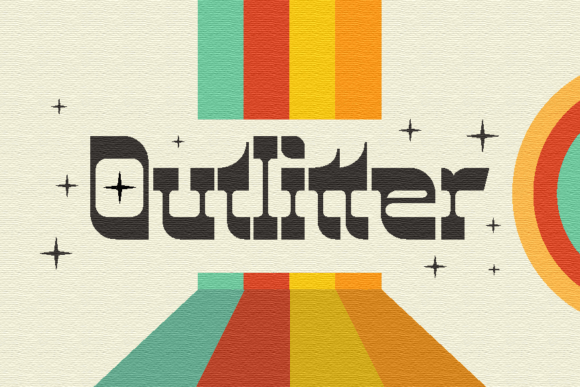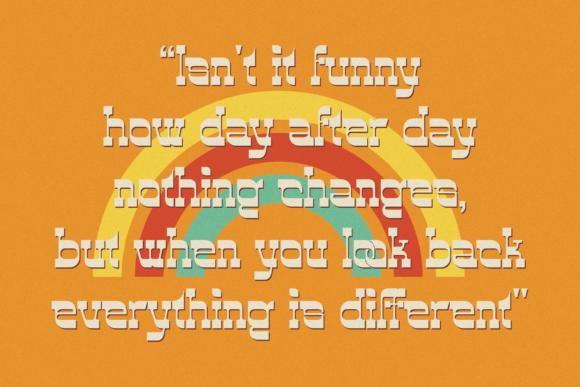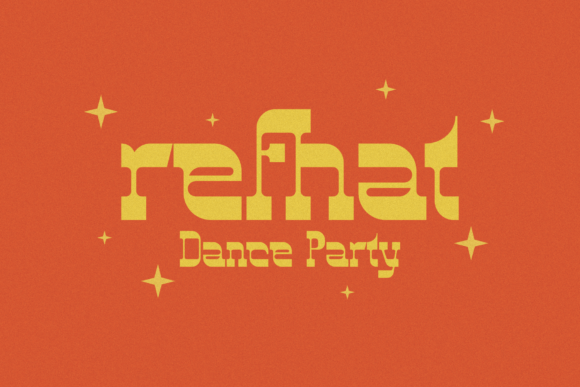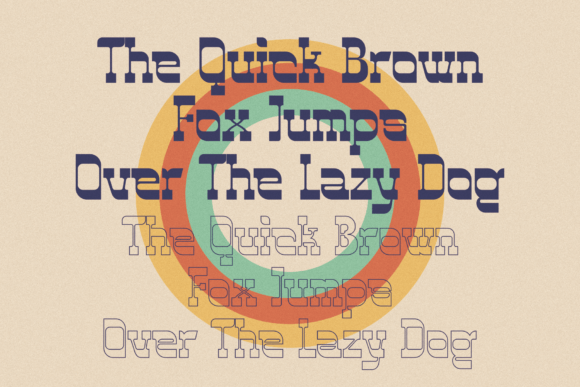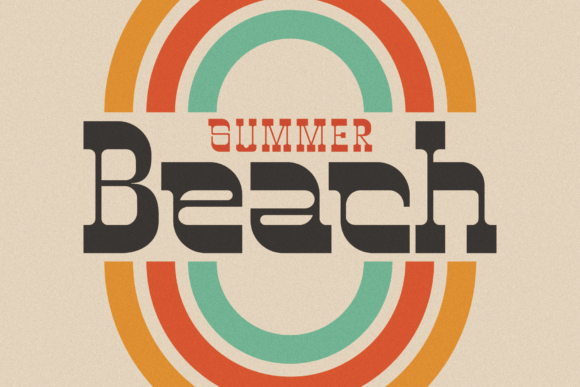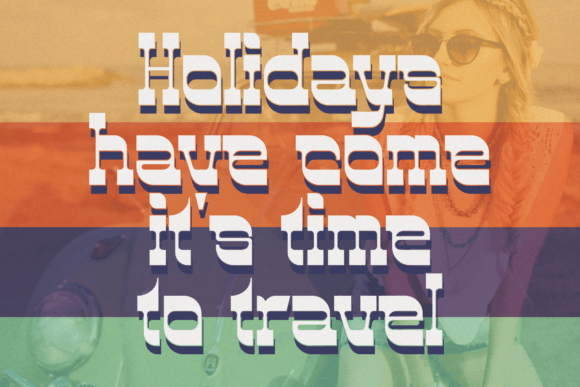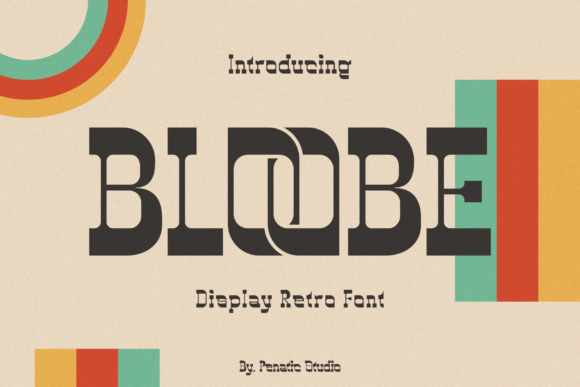
Bloobe Font: A Timeless Retro Display Font for Your Design Projects
Are you looking for a font that can add a touch of nostalgia and classic charm to your design projects? Look no further than the Bloobe Font, a stunning retro display font that takes inspiration from typography styles popular in the 1950s to 1980s. With its vintage feel and signature charm, this font is perfect for designers who want to create unique and striking designs that evoke feelings of nostalgia.
The Inspiration Behind Bloobe Font
The Bloobe Font is inspired by the typography styles of the mid-20th century, a time when classic and elegant fonts were a staple of advertising and design. The font’s creator aimed to capture the essence of this era, with a font that exudes a sense of sophistication and nostalgia. The result is a font that is both retro and timeless, perfect for designers who want to add a vintage touch to their projects.
Key Features of Bloobe Font
The Bloobe Font comes with a range of features that make it perfect for design projects. Some of its key features include:
- PUA Encoding: The Bloobe Font is PUA encoded, which means you can access all of the amazing glyphs and ligatures with ease. This makes it easy to use the font in your designs, without having to worry about complicated installation processes.
- Vintage Feel: The font has a classic touch and vintage feel that creates a nostalgic atmosphere. This makes it perfect for designers who want to evoke feelings of nostalgia in their designs.
- Retro Style: The Bloobe Font is a retro display font that takes inspiration from typography styles popular in the 1950s to 1980s. This makes it perfect for designers who want to add a touch of nostalgia to their designs.
Use Cases for Bloobe Font
The Bloobe Font is perfect for a range of design projects, including:
- Concert Posters: The font’s vintage feel and retro style make it perfect for concert posters, adding a touch of nostalgia and classic charm to your designs.
- Product Packaging: The Bloobe Font is also great for product packaging, adding a touch of elegance and sophistication to your designs.
- Logos: The font’s classic touch and vintage feel make it perfect for logos, adding a touch of nostalgia and timelessness to your brand’s identity.
- Promotional Materials: The Bloobe Font is also great for promotional materials, such as brochures, flyers, and business cards, adding a touch of retro charm to your designs.
Why Choose Bloobe Font?
There are many reasons why you should choose the Bloobe Font for your design projects. Here are just a few:
- Unique and Striking: The Bloobe Font is a unique and striking font that will add a touch of nostalgia and classic charm to your designs.
- Easy to Use: The font is PUA encoded, making it easy to use in your designs, without having to worry about complicated installation processes.
- Timeless: The Bloobe Font is a timeless font that will never go out of style, making it a great investment for designers.
In conclusion, the Bloobe Font is a stunning retro display font that is perfect for designers who want to add a touch of nostalgia and classic charm to their designs. With its vintage feel, retro style, and signature charm, this font is sure to evoke feelings of nostalgia in your audience. Whether you’re working on a concert poster, product packaging, logo, or promotional materials, the Bloobe Font is a great choice. So why wait? Download the Bloobe Font today and start creating unique and striking designs that will leave a lasting impression on your audience.